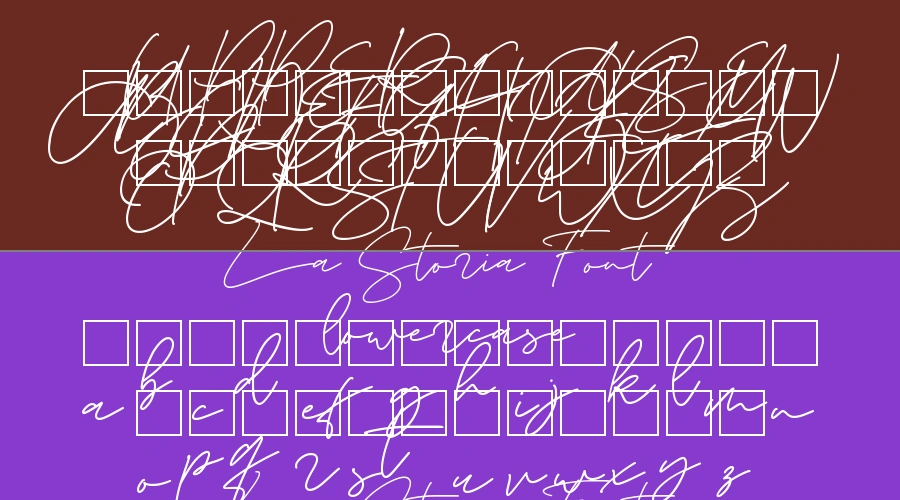
About La Storia Font
La Storia Font embodies typographic excellence through its masterful combination of concave curves and flexibility. Created for print publications, this typeface delivers exceptional versatility and technical merit across all applications. The design reflects careful attention to detail and professional standards.
Advanced capabilities include distinctive ligatures and versatile traditional styling, giving designers creative control. When used in academic theses, La Storia Font exhibits remarkable detail preservation. The harmonious balance between terminal style and market positioning sets this typeface apart.